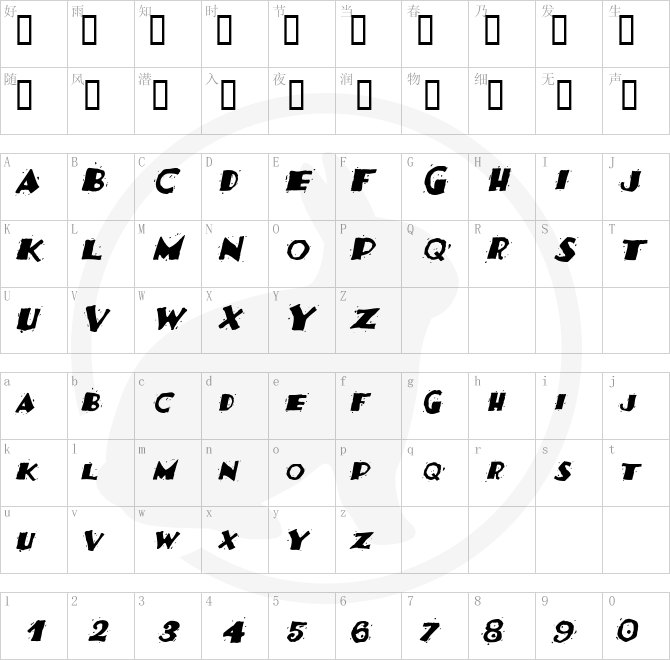
- Font Name:TacoFestiva
TacoFestiva-Italic.ttf is a very beautiful artistic font, TacoFestiva-Italic.ttf is widely used in the design and printing of various books and pictures,TacoFestiva-Italic.ttf has a strong visual impact,TacoFestiva-Italic.ttf is a commonly used font in newspapers, magazines and books, and is used in posters, e-commerce Poster design, store design, logo design, font design and other fields.TacoFestiva-Italic.